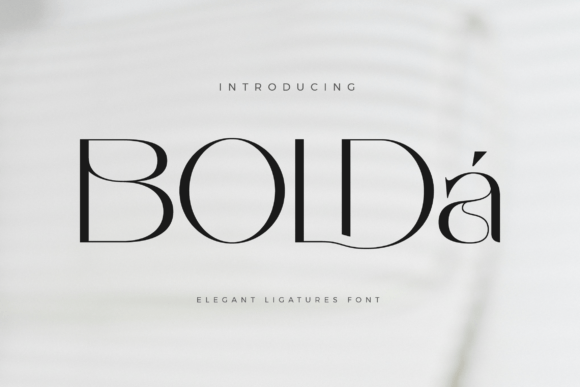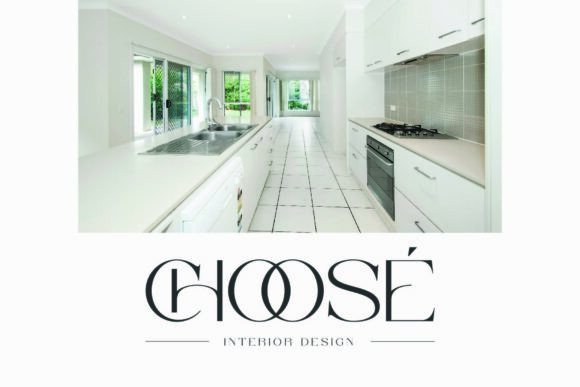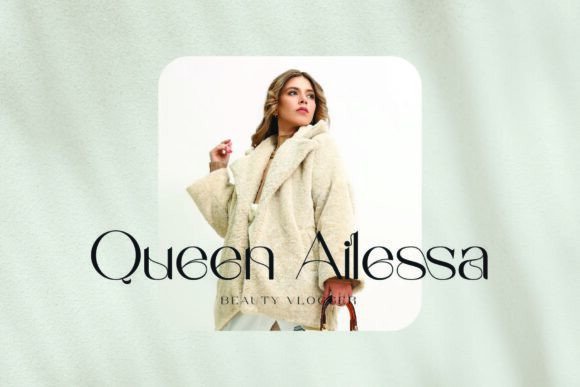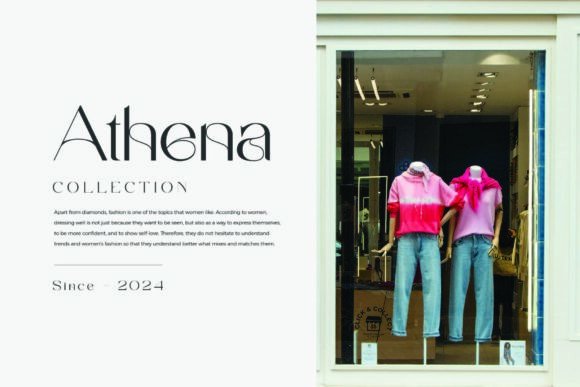
Bolda Font
About the Bolda Font
The Bolda Font offers a perfect balance of form and function for your design needs. Bolda is an elegant sans serif font inspired by the famous minimalist logo perfect for the purposes of designing templates, brochures, videos, advertising branding, logos, invitation, layout design, elegant crafting, beauty design and other.
Bolda’s elegant minimalism makes it ideal for headlines, logos, and short-form text in branding materials and advertising. Its clean lines work well on posters and packaging where impact is key, but avoid using it for large blocks of body text or UI elements where readability over long passages is crucial.
The font’s core personality is sophisticated and modern. It projects confidence and understated luxury. Therefore, it pairs well with a classic serif like Garamond for a touch of traditional elegance or a geometric sans-serif like Futura for a consistently modern feel. A script font like Allura could add a touch of handwritten flair to invitations or branding where a more personal feel is desired.
Consider Bolda for brands aiming for a premium aesthetic – high-end fashion, luxury goods, or architectural firms. Its clean, strong form avoids being overly trendy, ensuring longevity in application.
Bolda Font Usage Examples